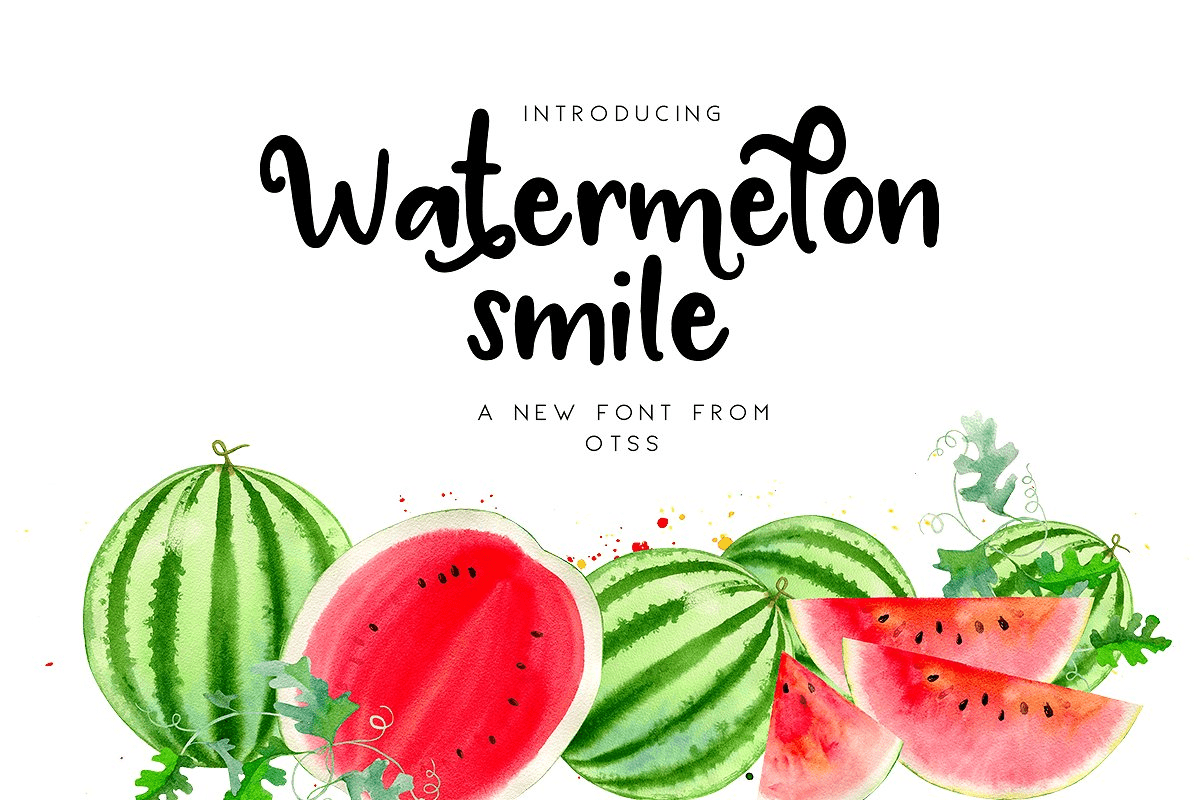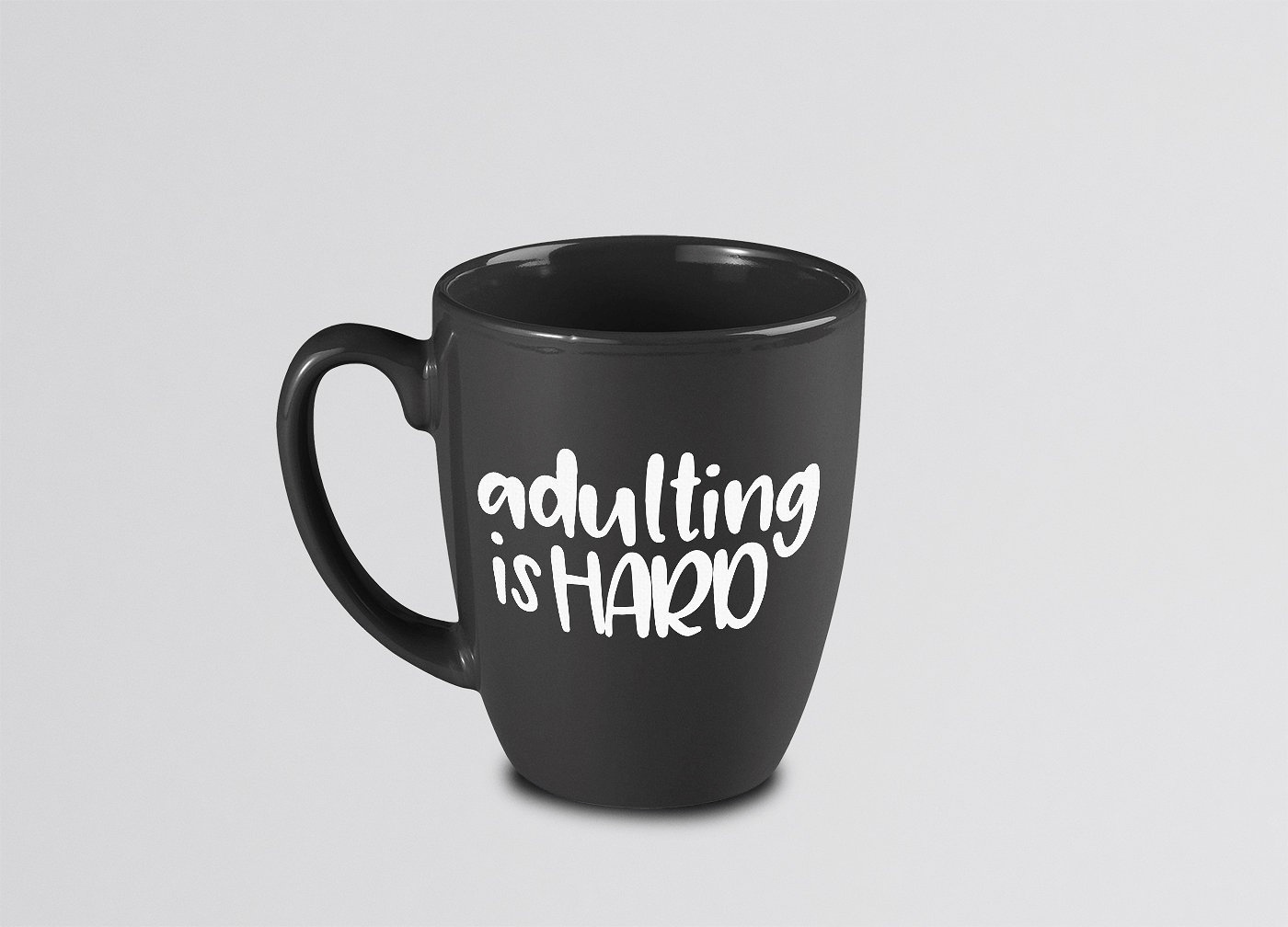
Watermelon Smile
Font Family by On The Spot Studio
Watermelon Smile is a hand lettered type great for branding, crafting, and so much more! Packed with personality, you will receive both the standard Watermelon Smile font as well as the BONUS font with swirls on certain letters for a little more attitude!